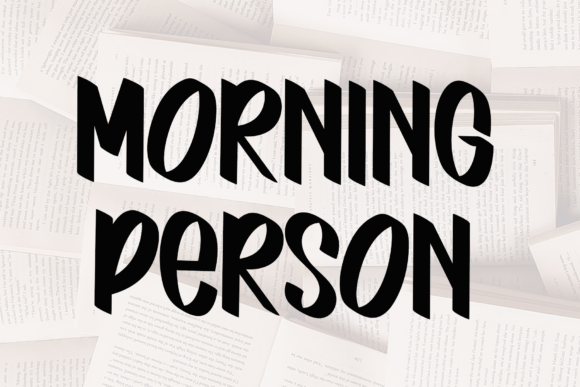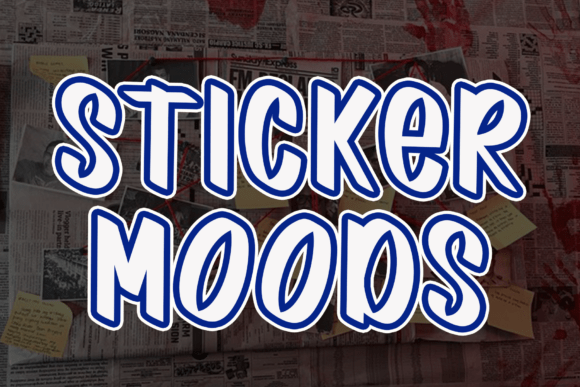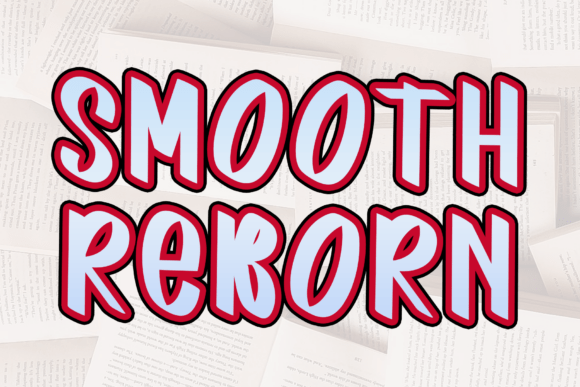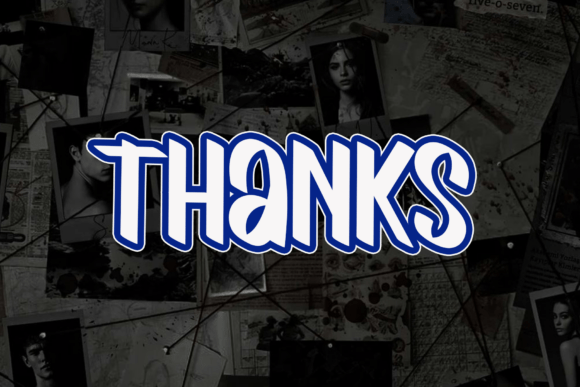
The Designer’s Delight: Boom Maniac Font
I’ll never forget the time I was working on a project for a trendy new coffee shop. I had the perfect design concept, but I just couldn’t find the right font to bring it all together. The client wanted something modern, yet approachable; clean, yet playful. That’s when I stumbled upon the Boom Maniac font. It was like a breath of fresh air! ✨
So, what makes Boom Maniac font so special? Let’s dive into the good stuff and, of course, a few quirks I’ve noticed.
- ✅ Clean and Simple Design: The font features clean shapes, soft edges, and well-balanced letterforms that make it perfect for a wide range of design projects.
- ✅ Playful yet Professional: Boom Maniac strikes the perfect balance between being fun and approachable, while still maintaining a level of sophistication.
- ✅ Versatile: This font is ideal for posters, branding, packaging, and social media graphics – the possibilities are endless!
While Boom Maniac font is amazing, there are a few things to keep in mind: 🤔
- ⚠️ Limited Serif Options: As a display font, Boom Maniac is designed primarily for headlines and titles. It may not be the best choice for body text or longer paragraphs.
- ⚠️ Glyph Variety: While the font has a great range of characters, it may not have every special character or glyph you need. Be sure to check the font’s capabilities before committing to a project.
One of the best things about Boom Maniac font is its OpenType features and glyphs. With a range of stylistic alternates and character variations, you can customize your text to fit your brand’s unique style.
The Story Behind Boom Maniac Font
The story behind Boom Maniac font is one of creativity and passion. According to the designer, the font was inspired by the energy and excitement of city life. The goal was to create a font that captures the charm of relaxed design while maintaining clarity and style.
Q: What type of projects is Boom Maniac font best suited for?
A: Boom Maniac font is ideal for posters, branding, packaging, and social media graphics.
Q: Is Boom Maniac font available in different weights or styles?
A: Currently, Boom Maniac font is available in a single weight. However, the designer may release additional weights or styles in the future.